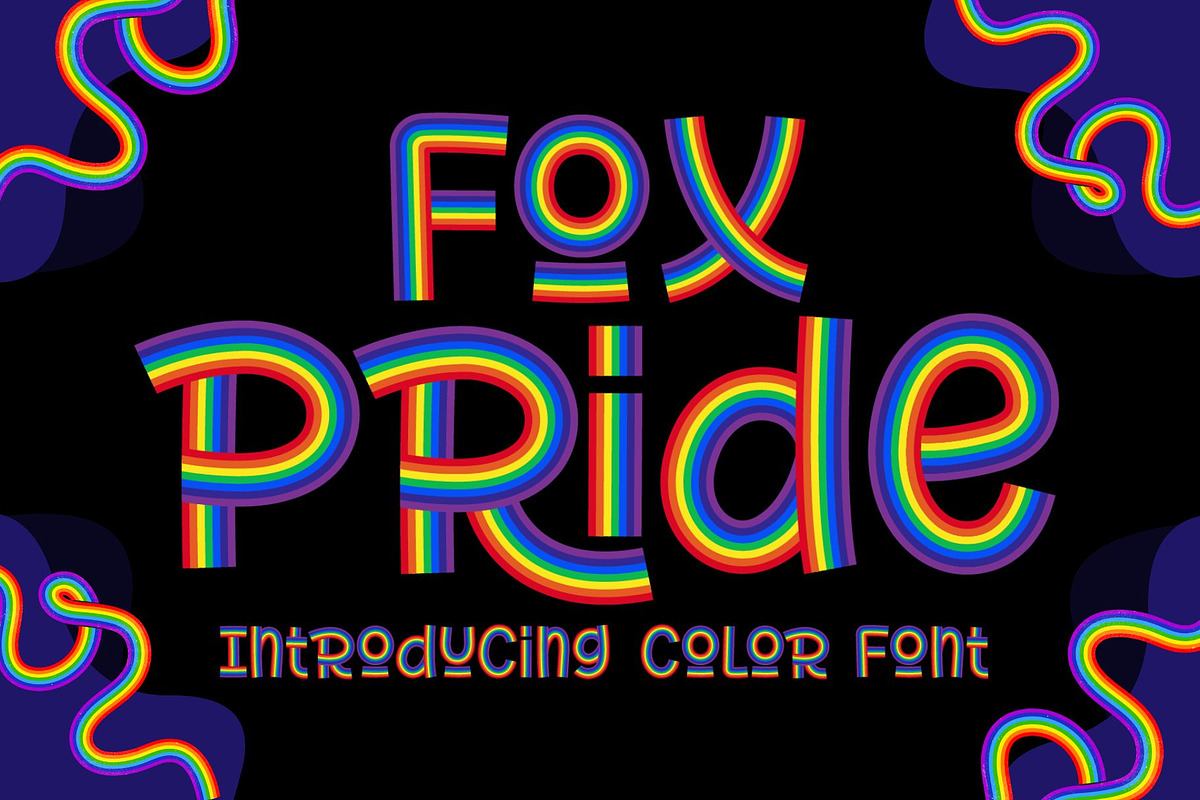
Please note that you must purchase this font for commercial use. You can download Fox Pride Color Font for free, strictly for personal testing purposes only. Fox Pride is a vibrant color SVG font that blends playful design with bold, multi-color styling—perfect for eye-catching visuals that stand out. With its fun, layered appearance and cartoon-inspired energy, Fox Pride Color Font Free Download is ideal for kids’ projects, YouTube thumbnails, merchandise, posters, greeting cards, and any creative work that needs a joyful, expressive touch.
As a color font (OpenType-SVG), it preserves texture, shading, and multi-tone details directly in the glyphs—offering more depth and vibrancy than standard fonts. It includes uppercase letters, numbers, and basic punctuation, and works best in compatible design software like Adobe Illustrator, Photoshop, or Procreate.
Whether you're designing playful branding or fun digital content, Fox Pride brings personality and color-packed creativity.